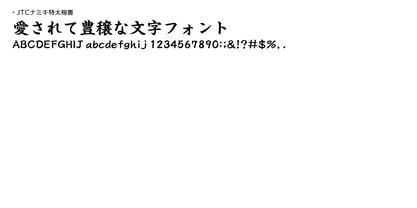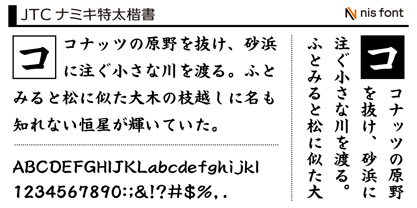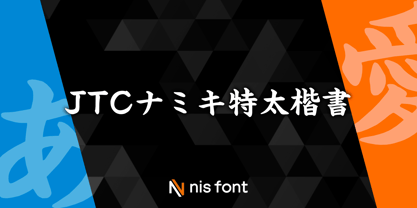
OT-NIS_NK
by NIS Fonts
The OT-NIS_NK Font Family was designed by and published by NIS Fonts. OT-NIS_NK contains 2 styles and family package options. More about this family
This typeface has a softer feel compared to standard kaisho (regular script) fonts, yet is slightly firmer than gyosho (semi-cursive script), creating a unique style that is both elegant and bold. In addition to including characters from the JIS Level-1 and Level-2 standards, it features approximately 1,400 external characters for personal names, responding to popular demand. This makes it suitable for a wide range of uses, such as gift wrapping, New Year's greeting cards, business cards, and more. Supports the JIS2004 character set.